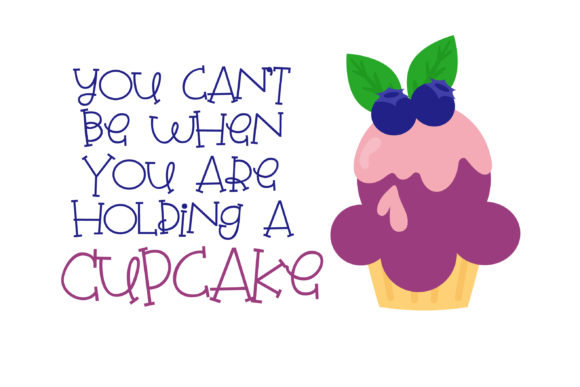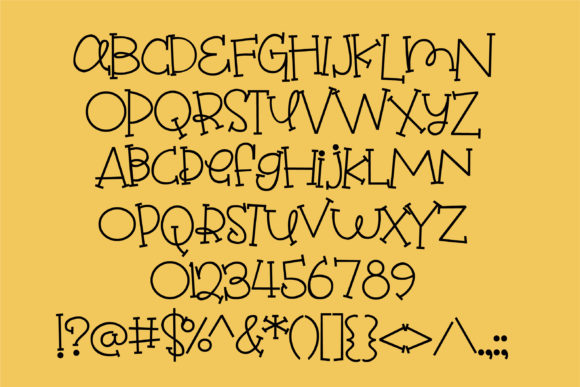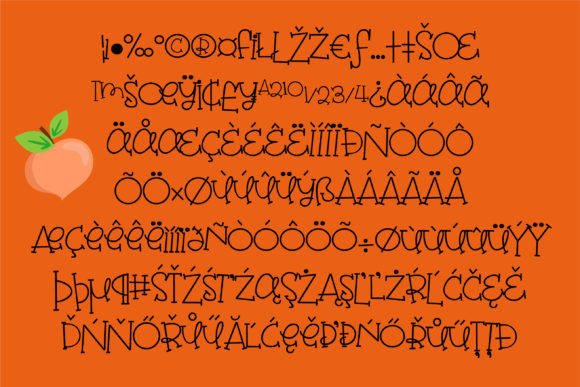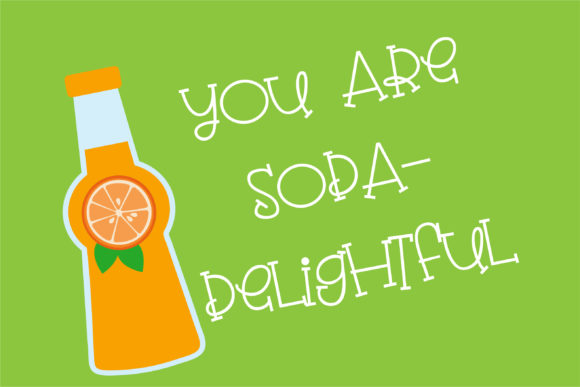
Introduction to Peach Mangoade Font
Have you ever been working on a creative project, pouring your heart and soul into it, and then stumbled upon the perfect font to bring it all together? That’s exactly what happened to many designers when they discovered the Peach Mangoade Font. This adorable serif font is a treasure trove of possibilities, offering a unique and whimsical touch to any design project.
Key Features of Peach Mangoade Font
- High-quality design resource suitable for creative projects and personal use
- Transparent background for seamless integration into any design
- Includes a range of characters and glyphs for versatile use in different contexts
- Perfect for adding a unique touch to digital designs, from social media graphics to website headers
Honest Review: Peach Mangoade Font
I recently stumbled upon the Peach Mangoade Font and I must say, it’s been a game-changer for my design projects. This free download is a high-quality addition to any designer’s toolkit, offering a unique and refreshing twist on traditional fonts.
What works well: ✨ The font’s versatility is impressive, making it suitable for a wide range of creative projects, from branding to packaging design. The clean lines and elegant curves of the Peach Mangoade Font ensure that your designs stand out from the crowd.
What I like most about this font is its ability to add a touch of sophistication and whimsy to any design. The transparent background feature also allows for seamless integration with various design elements.
- Suitable for various creative projects
⚠️ However, I do find the font’s limited character set to be a drawback. While it’s not a major issue, it may require some creative workarounds for more extensive design projects.
Overall, the Peach Mangoade Font is a fantastic addition to any designer’s arsenal. Its unique style and high-quality design make it a must-have for any creative project. I highly recommend giving it a try!
To get the most out of the Peach Mangoade Font, use it on a transparent background to create a clean and modern design. You can also experiment with different font sizes and styles to create a unique and eye-catching design.
The Peach Mangoade Font is a versatile design resource that can be used in a variety of creative projects, including branding, marketing materials, and social media graphics. It’s also a great choice for designers who want a high-quality font with a tropical twist.
Does the Peach Mangoade Font have a transparent background?
Yes, the Peach Mangoade Font features a transparent background, allowing you to easily place it over any design element or image without worrying about unwanted backgrounds or edges.